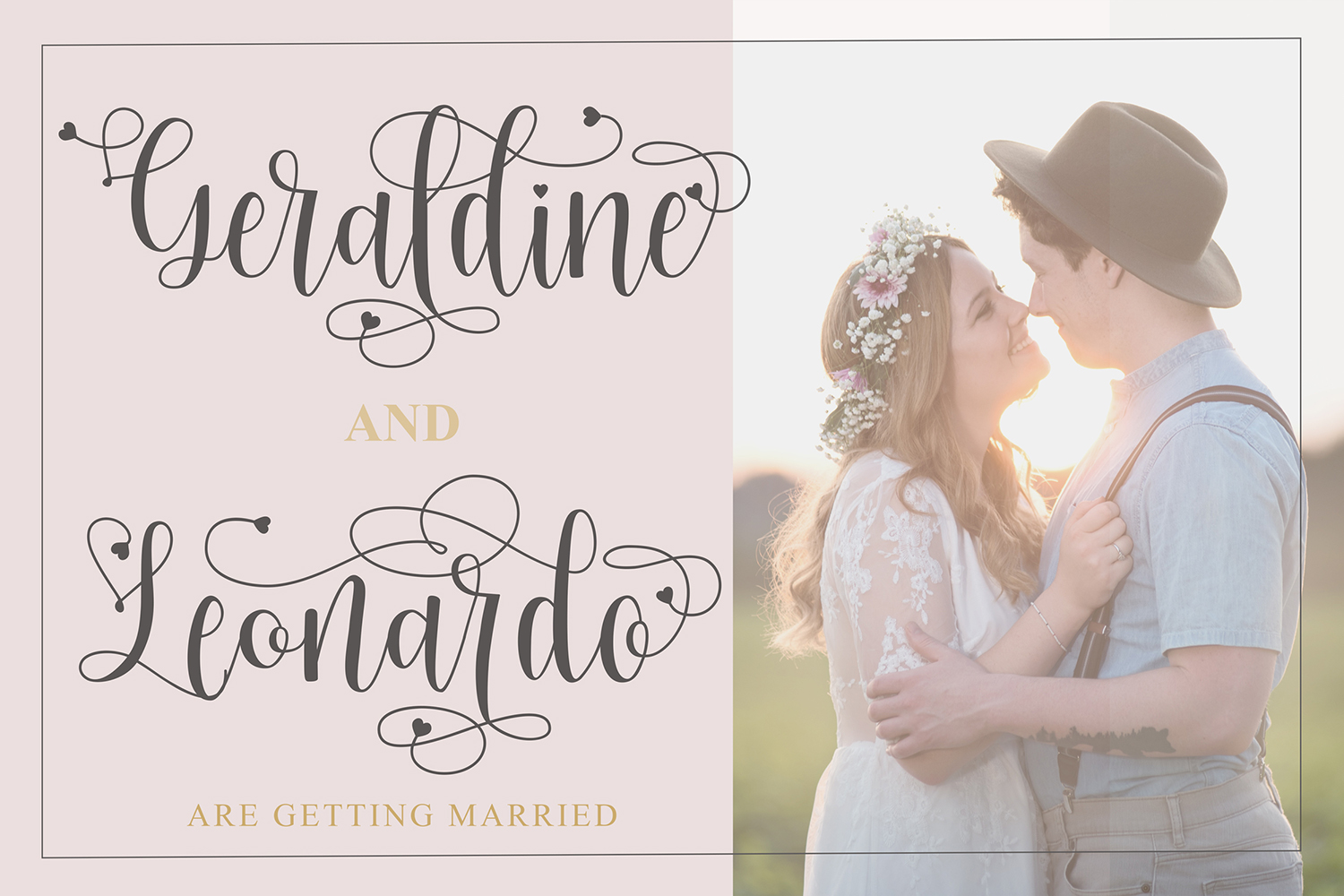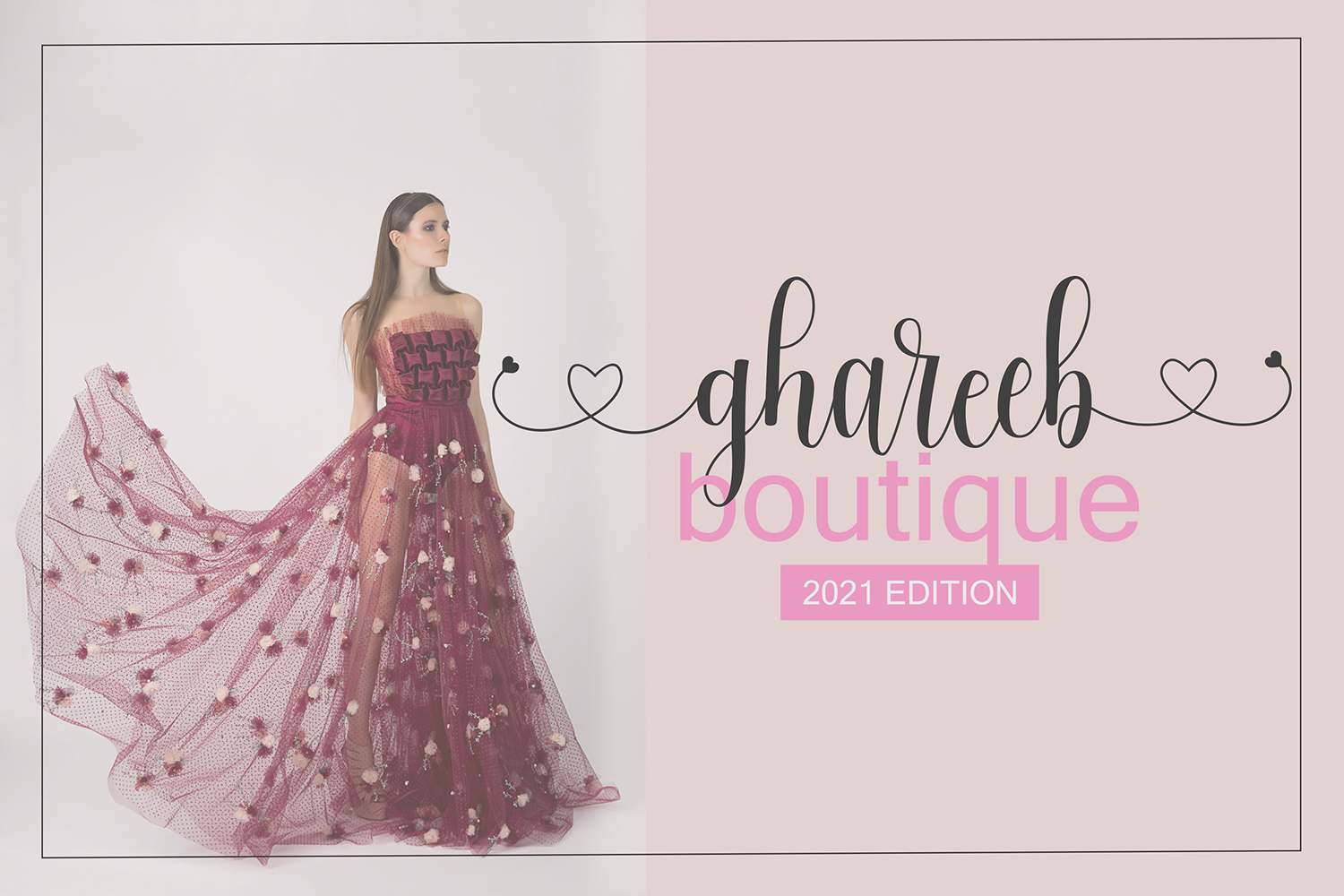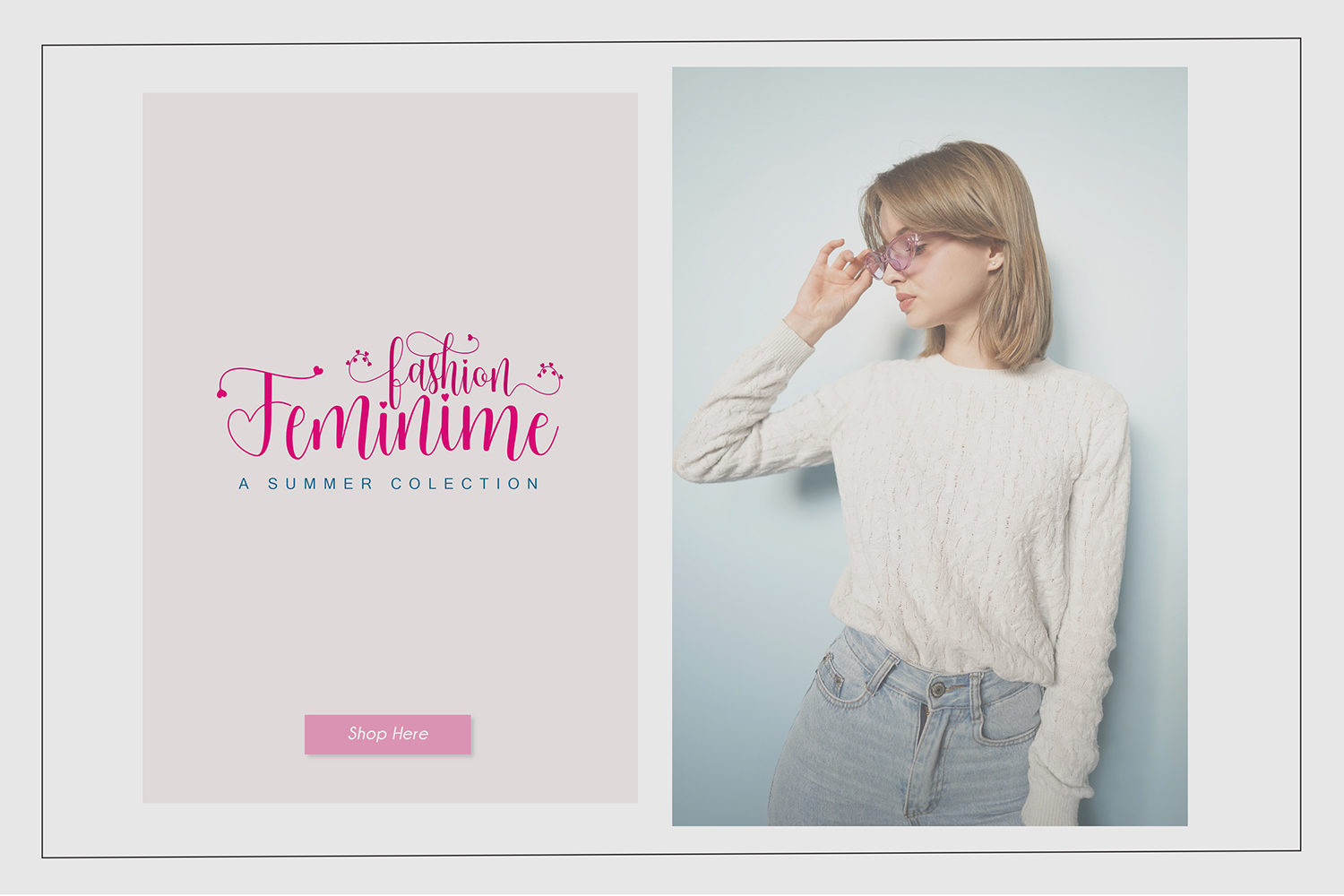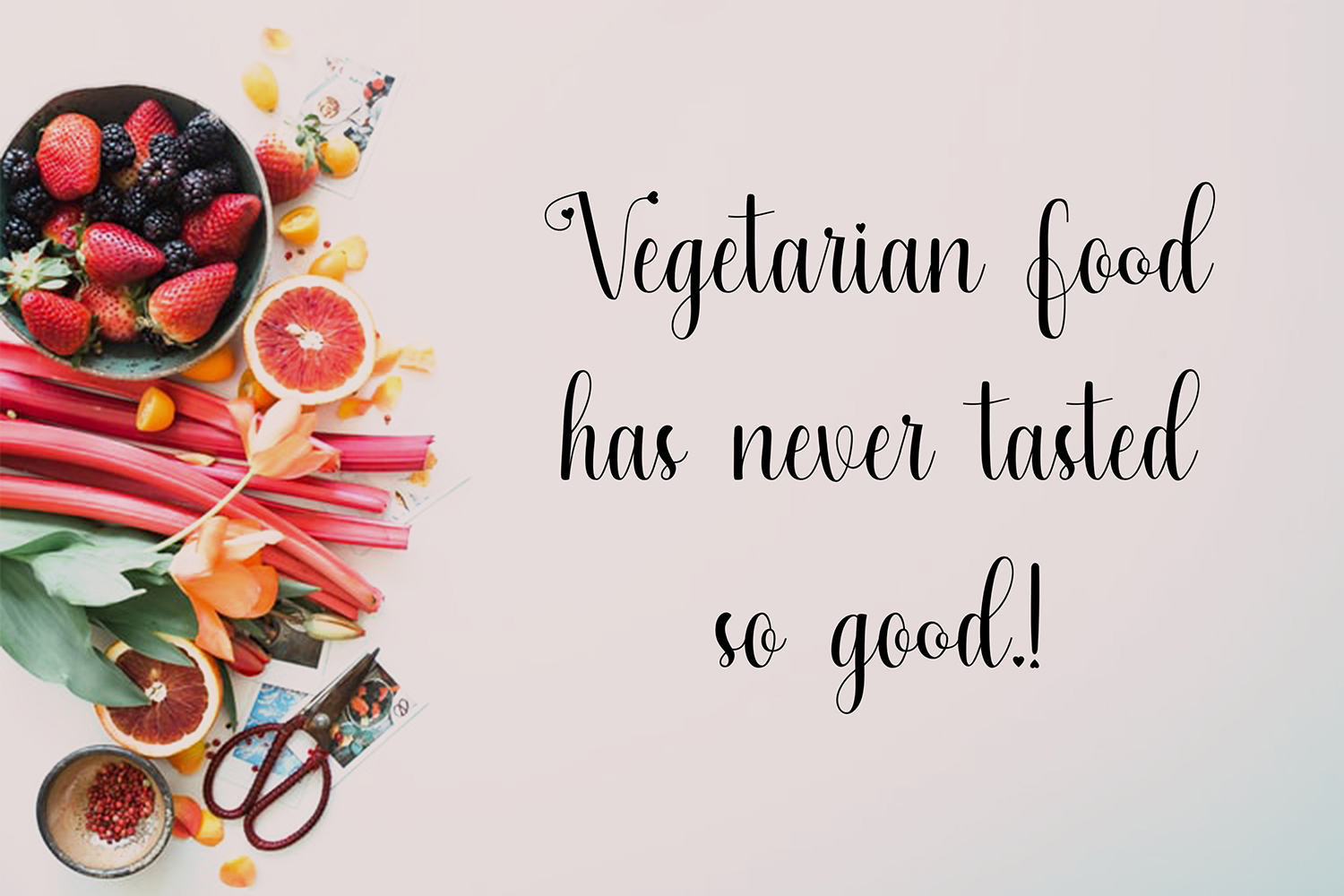
Hanifah Free Font
Experience the sheer elegance and fluidity of Hanifah Free Font – a font that exudes beauty and grace. This stunning typeface is a perfect match for wedding invitations, thank-you cards, quotes, greeting cards, logos, business cards, and any design in need of a captivating handwritten touch. With its varying baseline, smooth lines, exquisite glyphs, and breathtaking alternates, Hanifah takes your creations to a whole new level of sophistication. Embrace the timeless charm of this font and witness how it transforms your designs into works of art, leaving a lasting impression on anyone who beholds them. Don’t miss the opportunity to elevate your projects with the captivating allure of Hanifah. This free typeface was designed by a talented Sarif Hidayat. If you like it don’t forget to check out the full version.